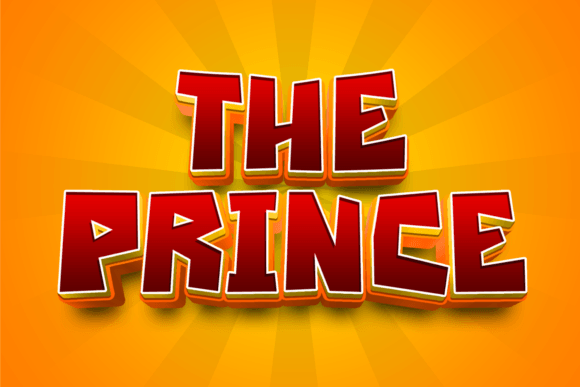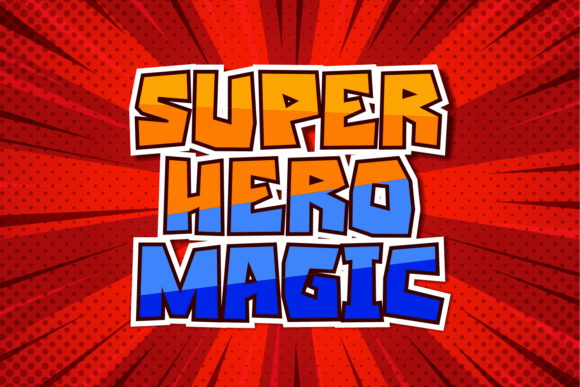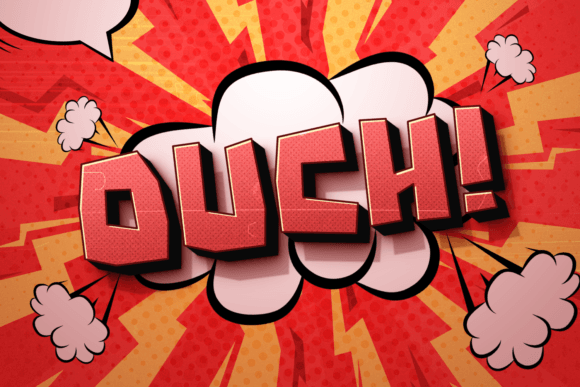
The Great Work Font: A Bold and Exciting Addition to Your Design Toolkit
I’ll never forget the time I was working on a project for a client who needed a bold, attention-grabbing font to match their energetic brand. I spent hours scouring the internet for the perfect font, but nothing seemed quite right. That was until I stumbled upon the Great Work font. With its bold, high-impact design, Great Work is perfect for headlines, titles, logos, and any display use. It draws the eye and creates a sense of urgency and excitement, making it ideal for attention-grabbing text.
An Honest Review of Great Work
- ✨ The bold, cartoon-inspired design is perfect for making a statement
- ✅ The font is highly legible, even at smaller sizes
- 🎉 The sense of excitement and urgency it brings to a design is unmatched
- 💻 The font is versatile and can be used for a wide range of projects, from digital to print
While Great Work is an amazing font, there are a few things to keep in mind. 🤔 For example, the font can be a bit overpowering if not used in the right context. It’s also worth noting that some of the more intricate details may get lost at very small sizes. ⚠️ However, these are minor complaints, and overall, Great Work is an excellent addition to any design toolkit.
The Backstory Behind Great Work
Great Work was designed by a team of creatives who wanted to create a font that would bring a sense of excitement and urgency to a design. The font was inspired by classic cartoons and comic books, with bold lines and bright colors. The designers wanted to create a font that would be perfect for headlines and titles, but also versatile enough to use for a wide range of projects.
A: Yes, Great Work is perfect for print projects, from brochures and flyers to posters and business cards. Its bold design and high-impact style make it ideal for grabbing attention and making a statement.